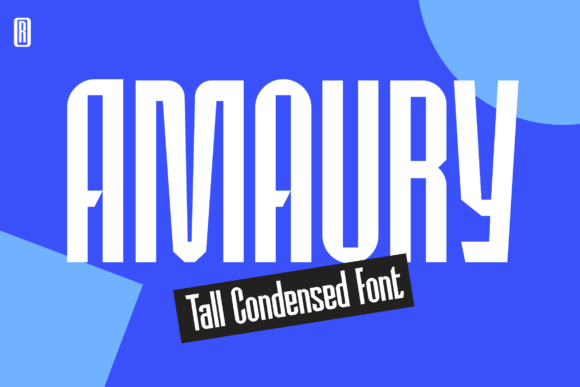
Amaury Font: A Designer’s Dream Come True
Amaury is a tall, condensed sans-serif font designed with narrow proportions and strong vertical emphasis. Its structure is optimized for space-efficient layouts while maintaining clear and consistent letterforms. The font includes uppercase and lowercase characters, numerals, punctuation, and multilingual support, making it incredibly versatile for a wide range of design applications.
What I Love About Amaury Font
- ✨ Space-efficient design: Amaury’s condensed width makes it perfect for designs that require maximum impact in limited horizontal space.
- ✅ Clear and consistent letterforms: The font’s clean construction ensures legibility at large sizes, making it ideal for headlines, posters, and signage.
- 💡 Multilingual support: Amaury supports a wide range of languages, making it a great choice for global brands and designers.
- 🎨 Flexibility: Amaury works well for various design applications, including branding titles, editorial layouts, and promotional graphics.
While Amaury Font is an excellent choice for many design projects, there are a few things to keep in mind:
- 🤔 Limited use for body text: Due to its condensed width, Amaury may not be the best choice for lengthy body text. It’s best suited for headlines, titles, and short text applications.
- ⚠️ Glyph support: While Amaury supports a wide range of languages, some glyphs may not be available. Be sure to check the font’s documentation for specific glyph support.
The Story Behind Amaury Font
Amaury Font was designed with the goal of creating a versatile, space-efficient sans-serif font that would excel in a variety of design applications. The font’s creator, a seasoned typographer, drew inspiration from classic sans-serif fonts while incorporating modern design elements to create a unique and distinctive voice.
| What is Amaury Font? | Amaury Font is a tall, condensed sans-serif font designed for space-efficient layouts and clear, consistent letterforms. |
| What design applications is Amaury Font best suited for? | Amaury Font is ideal for headlines, posters, signage, branding titles, editorial layouts, and promotional graphics. |
| Does Amaury Font support multilingual text? | Yes, Amaury Font supports a wide range of languages, making it a great choice for global brands and designers. |
| Can I use Amaury Font for body text? | While Amaury Font can be used for short paragraphs of body text, it’s best suited for headlines, titles, and short text applications due to its condensed width. |